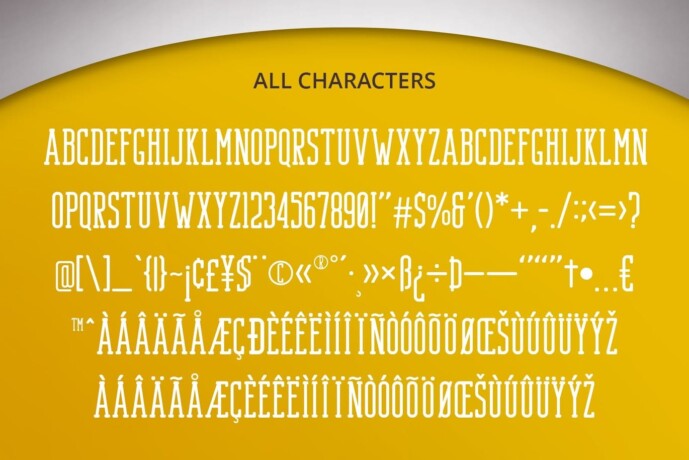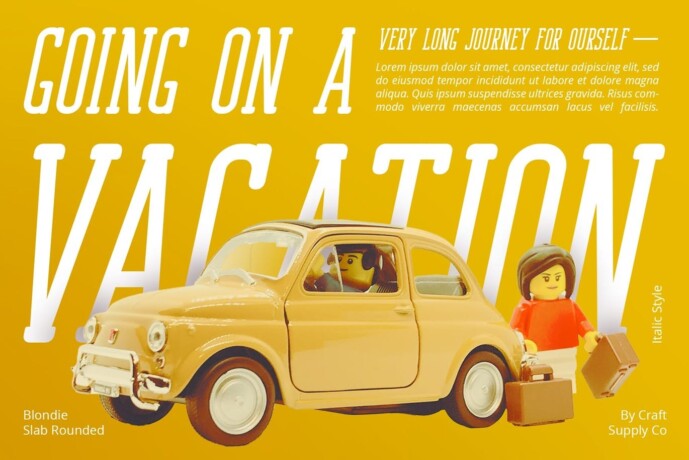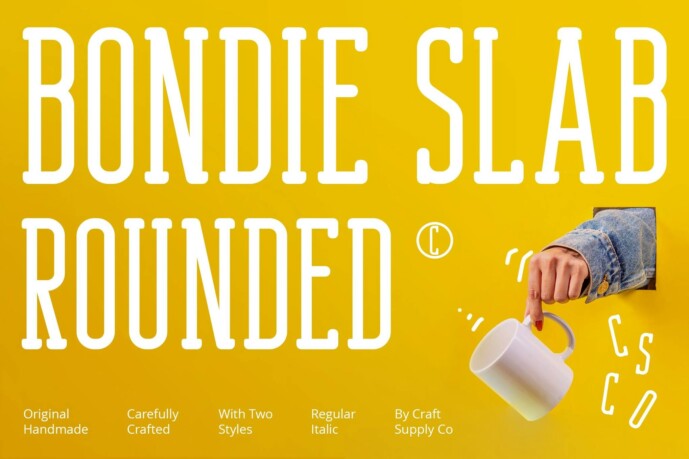
Bondie Slab Rounded Font
Designer: craftsupplyco
Bondie Slab Rounded Font: fun and professional. Charming Plate Serif Design This font features a tall, condensed plate serif style, with rounded ends that add a playful touch to its general appearance.
Conveys professionalism with a touch of originality While maintaining a professional demeanor, this font brings a touch of whimsy to its design, making it suitable for a wide range of projects requiring both sophistication and a touch of
Versatile Application This font’s unique combination of height, condensed shape, and rounded details makes it versatile for various applications, including branding, headlines, posters, and more. Its distinct personality ensures that your message stands out effectively.
Balancing playfulness and elegance This font strikes the perfect balance between playfulness and elegance, making it an ideal choice for designers who want to infuse charm and professionalism into their projects